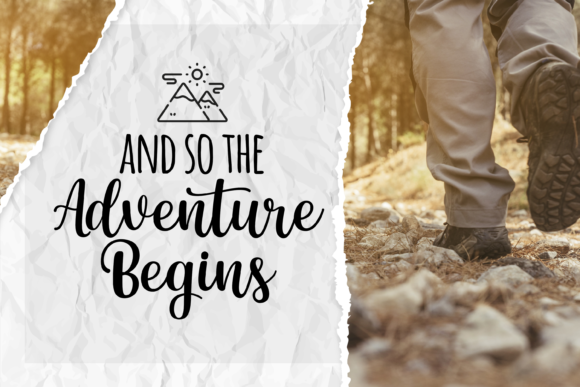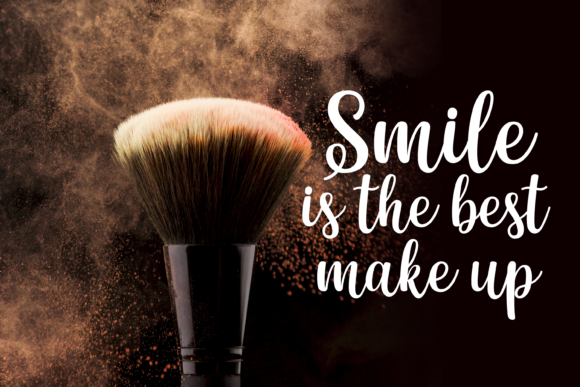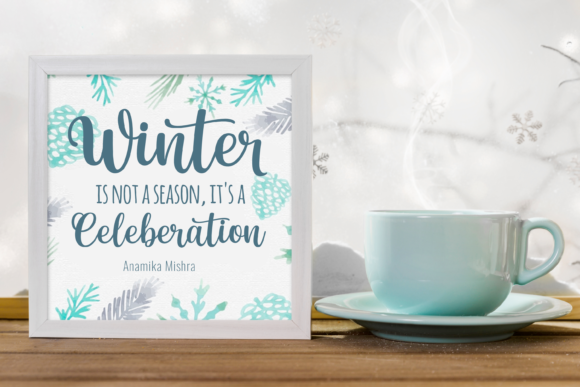
Winter Beauty is a sweet, fancy hand-lettered script. The playful rounded characters make it the perfect font for creating stunning calligraphy art. Add it to your designs and make them come alive!
Winter Beauty Font